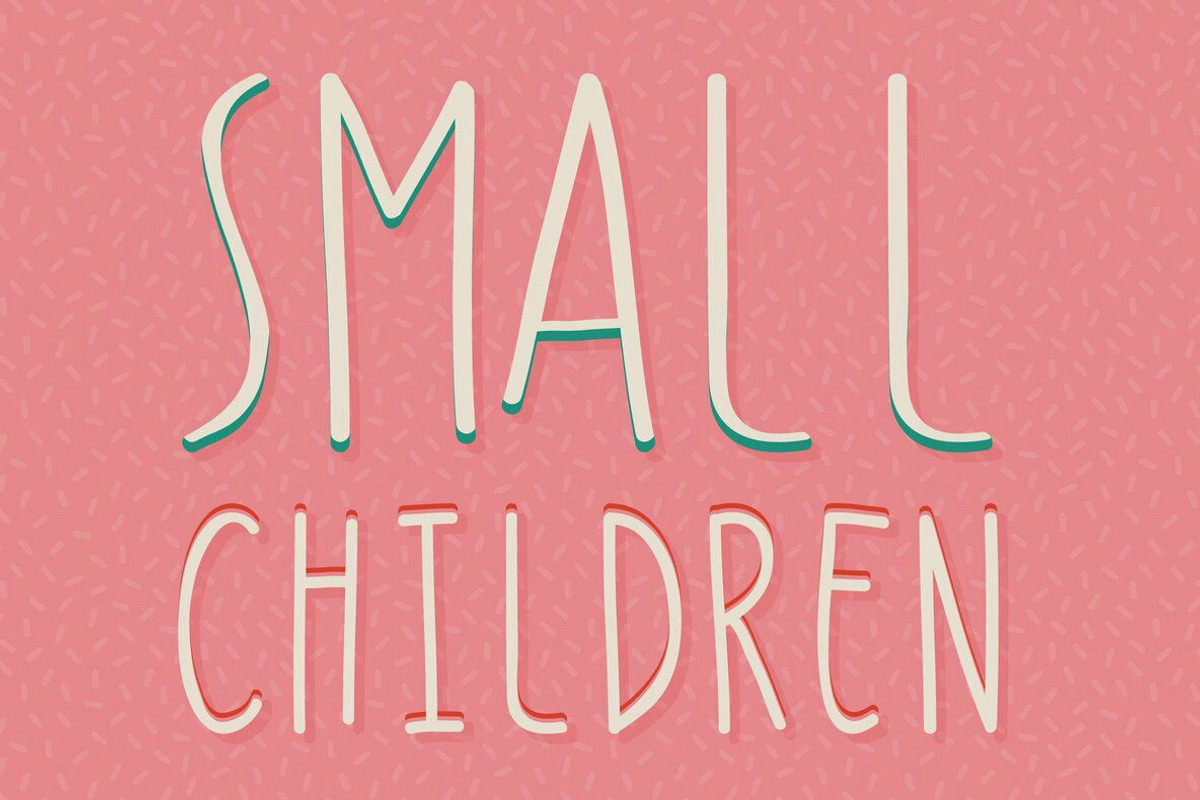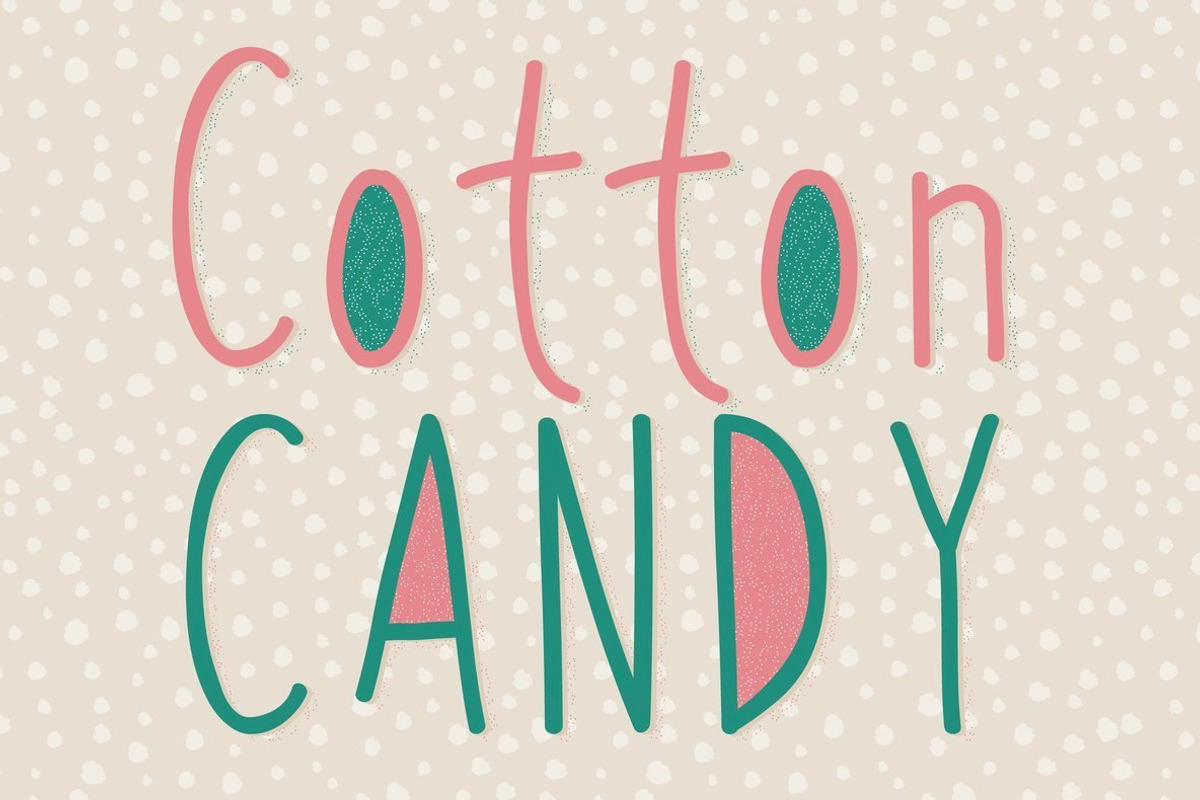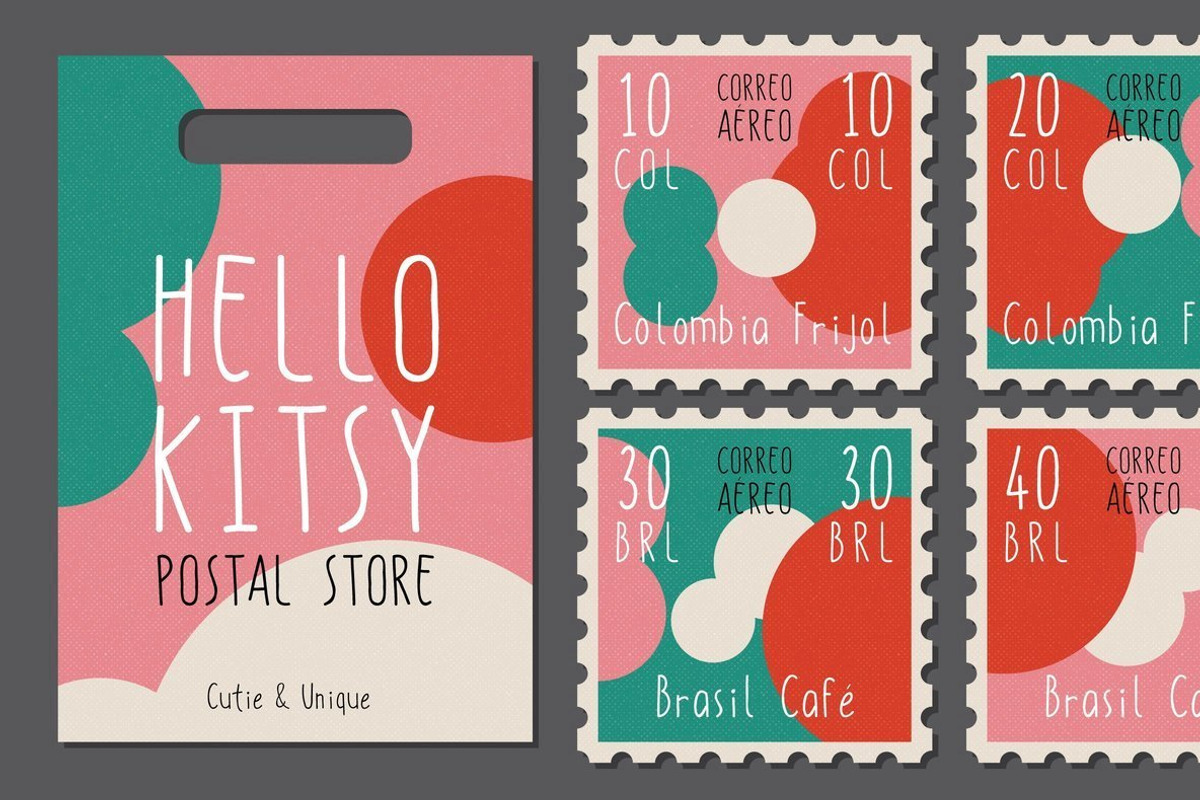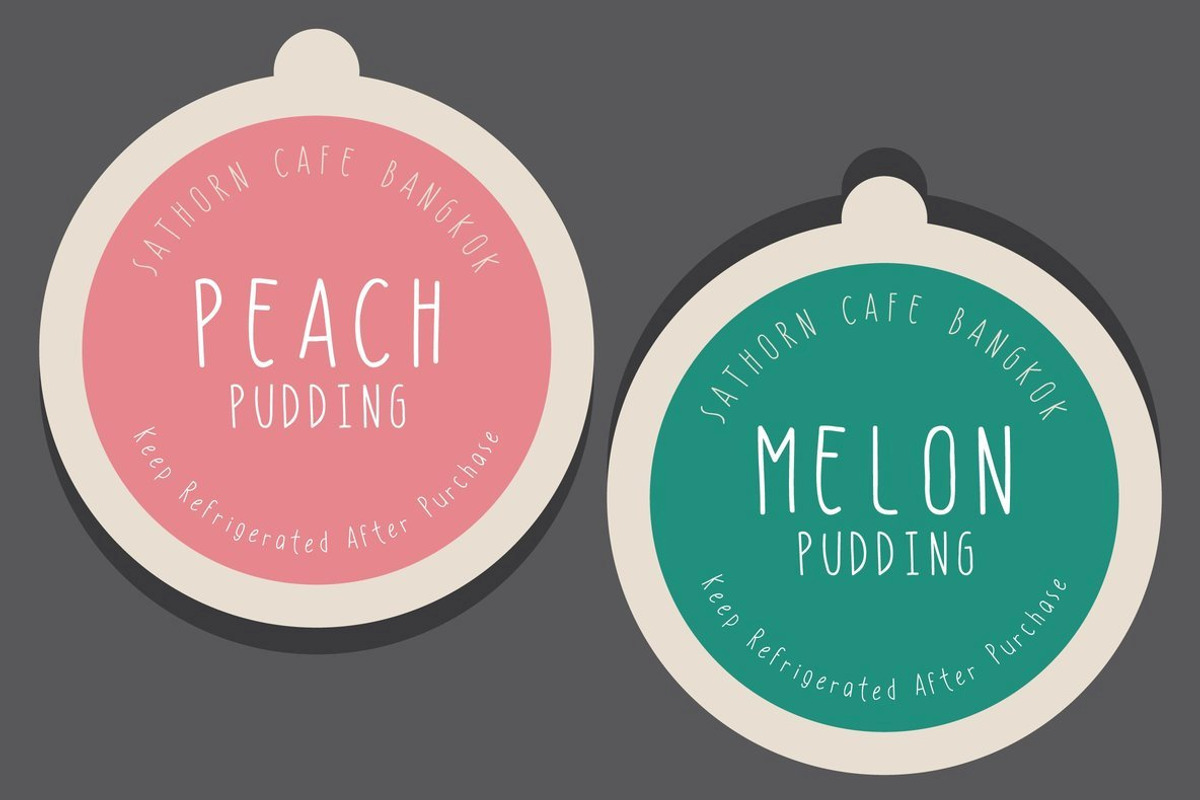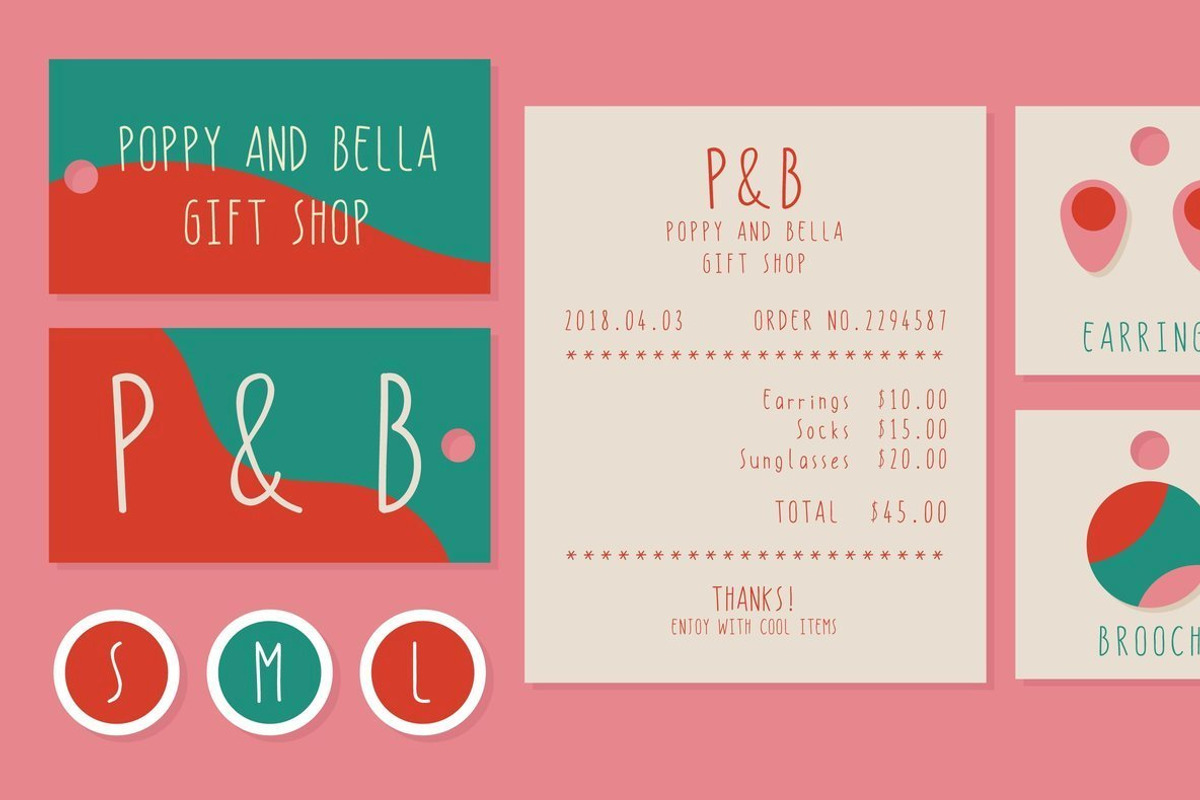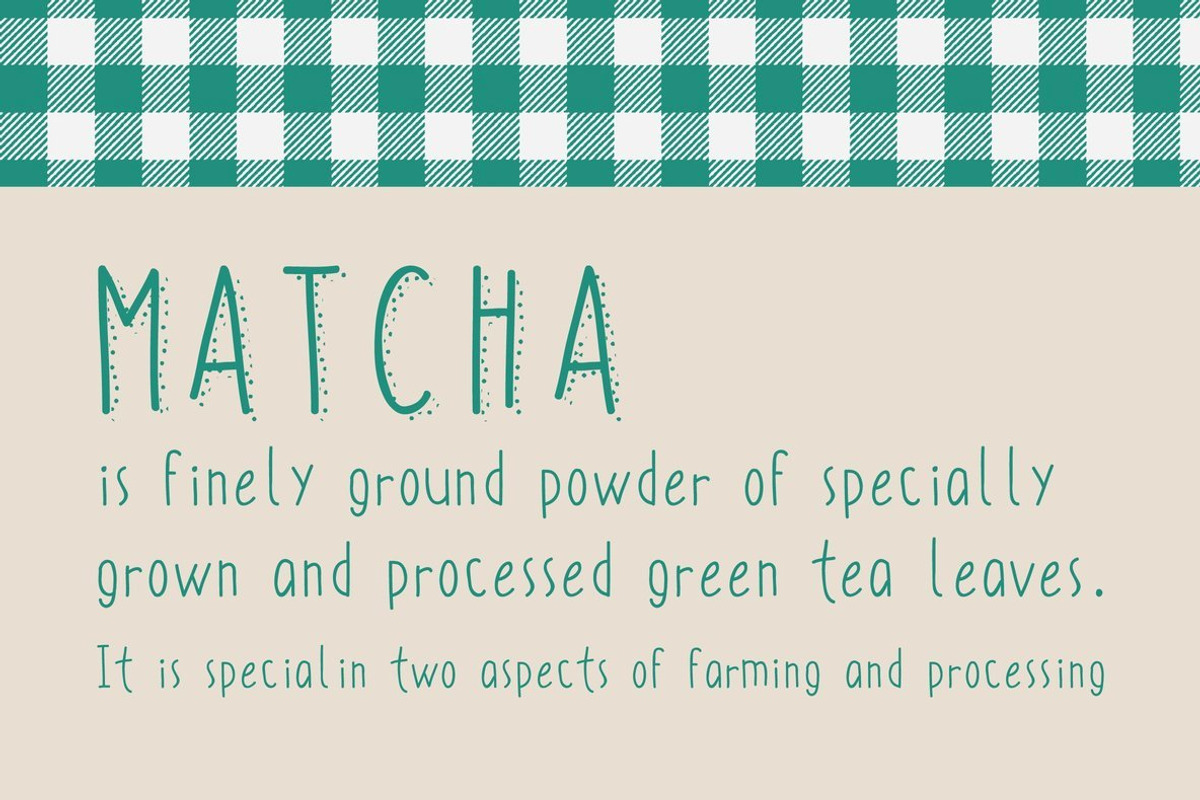
Hand Written Font - Hello Kitsy
Presenting my latest product Hello Kitsy, this font is fun & modern hand written sans serif. Hello Kitsy is perfect for typography layouts, invitations, weddings, logos, and etc.
Hand Written Font - Hello Kitsy by Collapse Std. fits naturally into Branding, posters, packaging, typography.